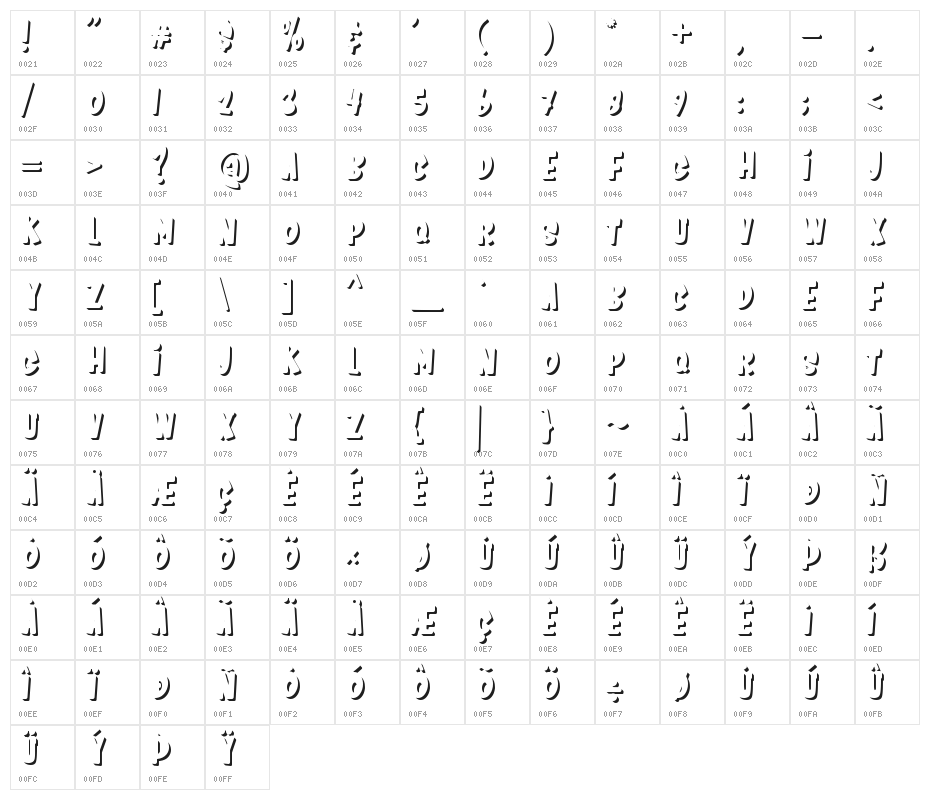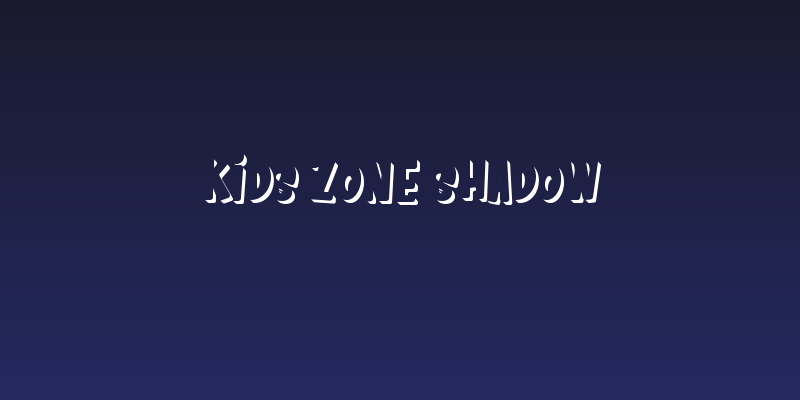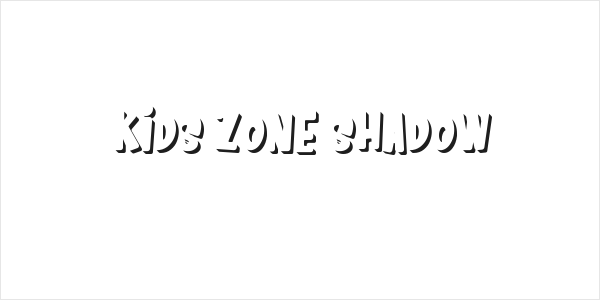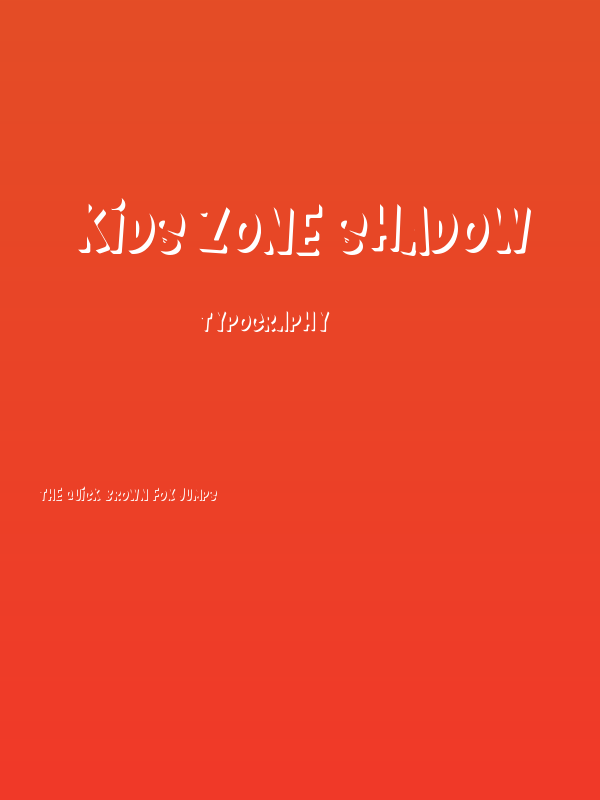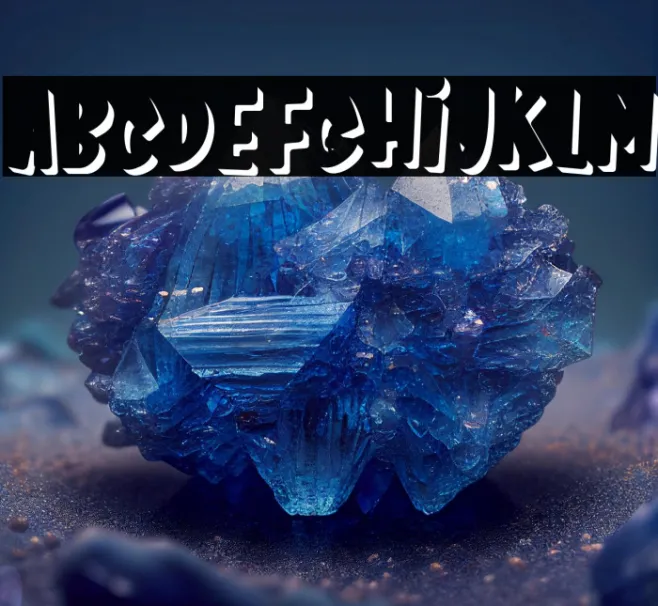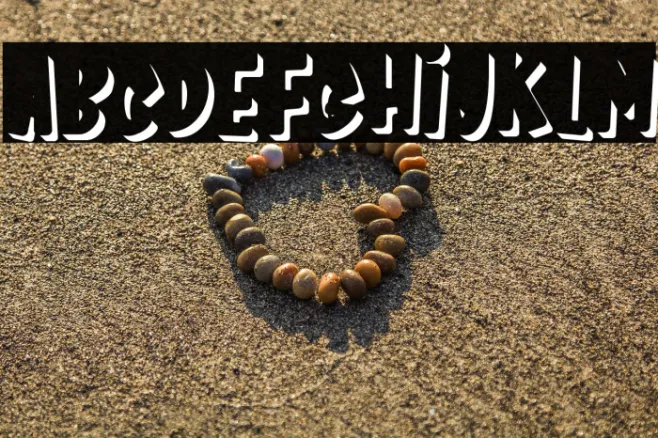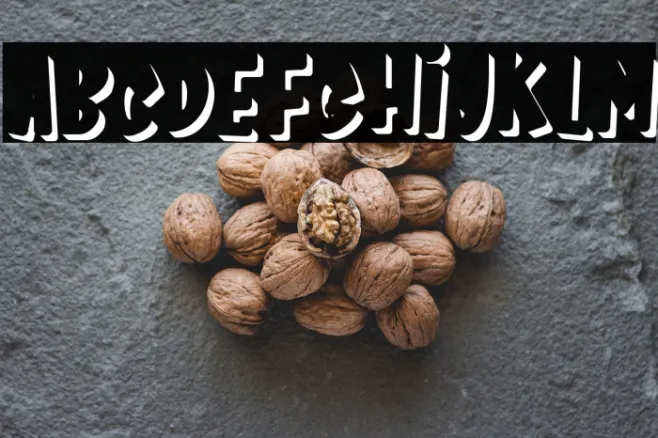
Kids Zone Shadow Font
Kids Zone Shadow Description
This playful and bold font features a unique shadow effect that adds depth and dimension to each character. The letters are crafted with a whimsical style, making them perfect for capturing attention. The uppercase and lowercase letters maintain a consistent design, with sharp angles and a slightly condensed form. The numbers and special characters follow the same playful theme, ensuring a cohesive look across all text. This font is ideal for projects that require a fun and engaging visual element.
| Overall Style | Playful, Fun |
| Proposed Projects | Ideal for children's book covers, playful posters, toy packaging, and educational materials. |